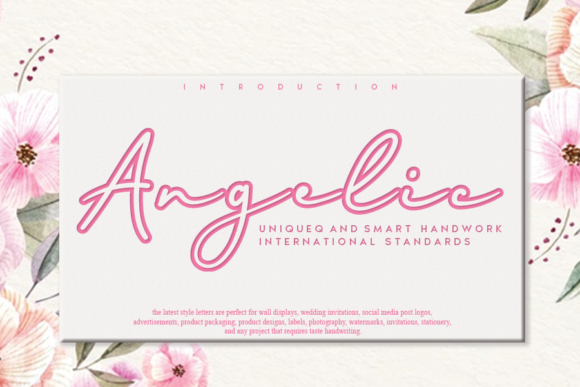
Enter the realm of elegance and sophistication with Angelic Font, the enchanting script font family that will elevate your designs to new heights. Inspired by the timeless beauty of classic typography, Angelic breathes life into your creative endeavors, transforming them into breathtaking masterpieces.
With its graceful curves and delicate strokes, Angelic is the perfect choice for those seeking a font that exudes both charm and refinement. Its versatility knows no bounds, effortlessly complementing a wide range of projects, from heartfelt handwritten notes to captivating social media posts.
Picture this: your Instagram feed adorned with breathtaking quotes, each letter dancing across the screen with a touch of elegance that captivates your audience. Or, imagine your DIY projects imbued with a personal touch, as Angelic's flowing lines lend an air of artistry to your handmade creations.
Angelic is not just a font; it's an expression of your unique style and creativity. It's a tool that allows you to turn your imaginative ideas into tangible works of art, leaving a lasting impression on all who encounter them.
So, embrace the allure of Angelic Font and embark on a creative journey where beauty and inspiration intertwine. Let your designs shine with a touch of enchantment, and let Angelic guide you towards a world of limitless possibilities.
- Elevate your social media presence with captivating visuals that leave a lasting impression.
- Transform your handwritten notes into works of art that convey your heartfelt messages with a touch of elegance.
- Unleash your inner artist and create stunning DIY projects that reflect your unique style.
- Design eye-catching logos and branding materials that exude professionalism and sophistication.
- Craft unforgettable invitations and greeting cards that capture the essence of every special occasion.
With Angelic Font, the possibilities are endless. Embrace its charm, let your creativity soar, and watch as your designs flourish into breathtaking masterpieces. Don't settle for ordinary; choose Angelic Font and unlock the gateway to creative brilliance.